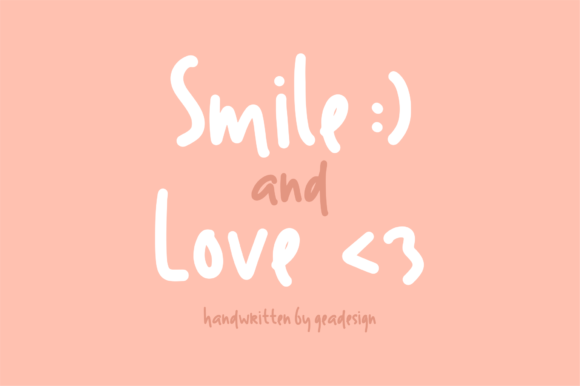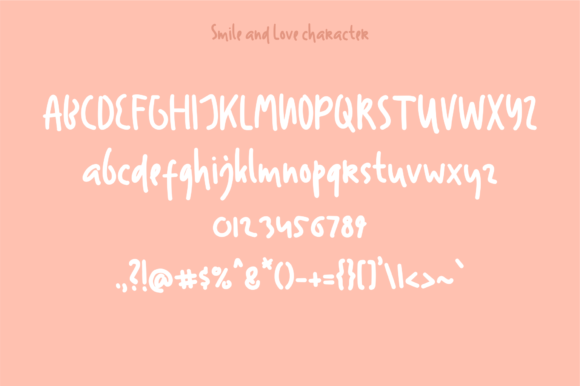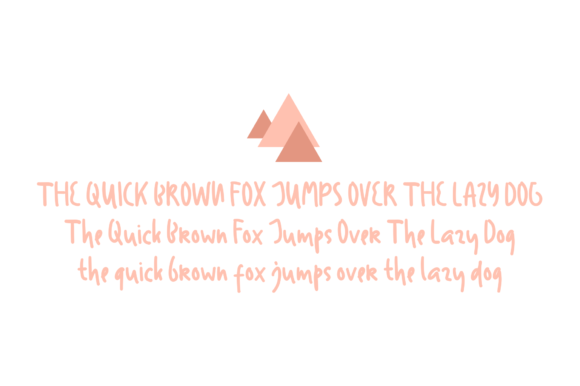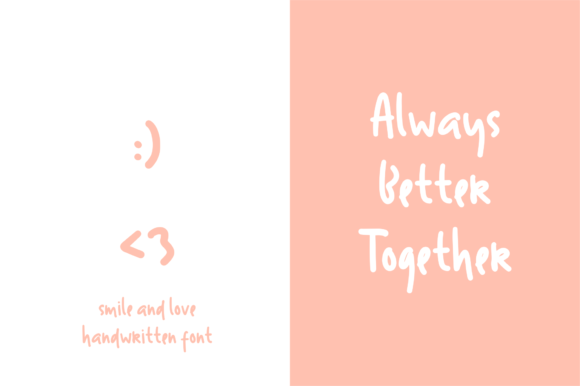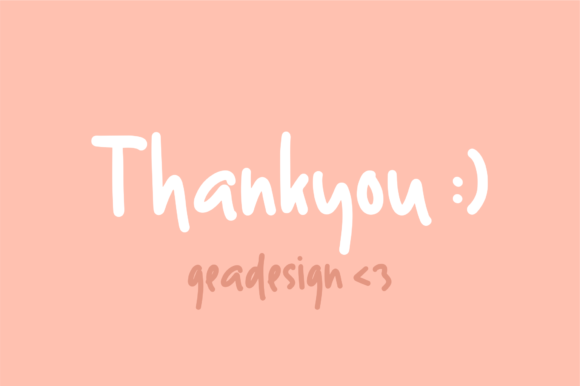
HomeScript FontsSmile and Love Font Script Fonts Smile and Love Font FacebookXPinterestWhatsApp Smile and Love Font Poster 2 Smile and Love Font Poster 3 Smile and Love Font Poster 4 Smile and Love Font Poster 5 About Smile and Love Font Smile and Love is an incredibly happy and cheerful script with a casual twist. DOWNLOAD NOW People also explored Qualzharo Font Kristafly Font Barbara Font Sunglow Font Dellisa Roslytta Font Pastel Cake Font Candy Xmas Font Monthier Font Bellastory Font 401 0 TagsSmile and Love Font Previous articleAyunda FontNext articleAgatha Font LEAVE A REPLY Cancel reply Comment: Please enter your comment! Name:* Please enter your name here Email:* You have entered an incorrect email address! Please enter your email address here Website: Save my name, email, and website in this browser for the next time I comment. Personal Use Free Zojihun Personal Use Free Read more about this font Street Cred Personal Use Free Read more about this font Masker Area Personal Use Free Read more about this font Elliane Personal Use Free Read more about this font BLOG Top 10 Handwritten Fonts That Elevate Your Designs Top 10 Handwritten Fonts That Will Elevate Your Designs Handwritten fonts bring a warm, personal touch to every creative project. Whether you're designing logos, invitations,... Fonts That Capture the Spirit of New York City Transform Your Website: Elevate Your Typography with 7 Best Web Font Generators Elegant Wedding Invitation Fonts – Handwritten & Script Fonts